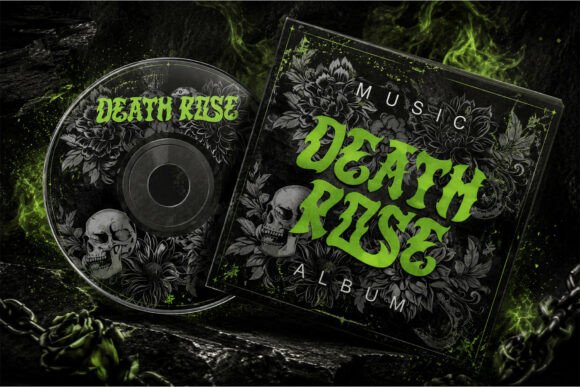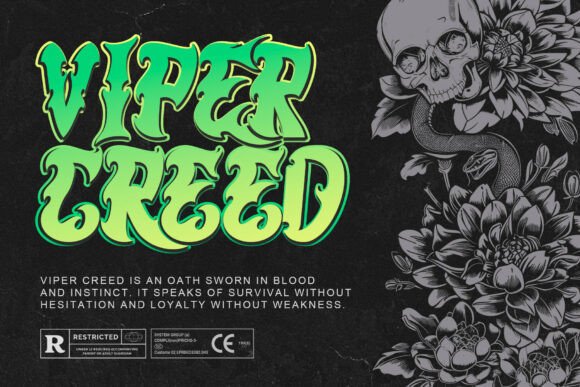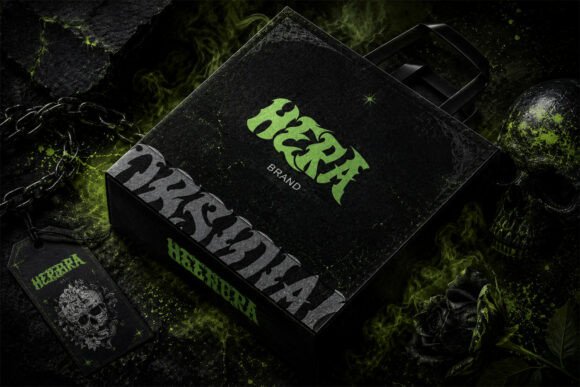
Introduction to Kelmora Font Font
Fonts play a crucial role in design, and the Kelmora Font font is a typeface that brings both character and versatility to any project. Whether you’re working on a branding project, a website, or a print design, the Kelmora Font font offers a unique style that can elevate your work.
Kelmora is a bold psychedelic blackletter display font crafted with a strong gothic structure and expressive organic curves, delivering a distinctive visual identity that feels powerful, artistic, and contemporary.
Inspired by underground typography, vintage psychedelic aesthetics, and modern experimental design, Kelmora offers dramatic letterforms that instantly capture attention while maintaining strong readability and visual balance Perfect for album covers, poster design, product packaging, branding, beverage labels, creative advertising, gaming visuals, editorial layouts, and premium display projects that require a unique and memorable typographic presence.
Why Choose Kelmora Font Font?
The Kelmora Font font is more than just a typeface – it’s a design tool that helps you communicate your message with style and clarity. Its unique character set and versatile design make it suitable for a wide range of applications, from elegant invitations to bold headlines.
With its carefully crafted letterforms and balanced proportions, the Kelmora Font font ensures readability and visual appeal across all mediums.
What makes Kelmora Font font special?
The Kelmora Font font stands out with its unique design, exceptional readability, and versatility across various design applications.